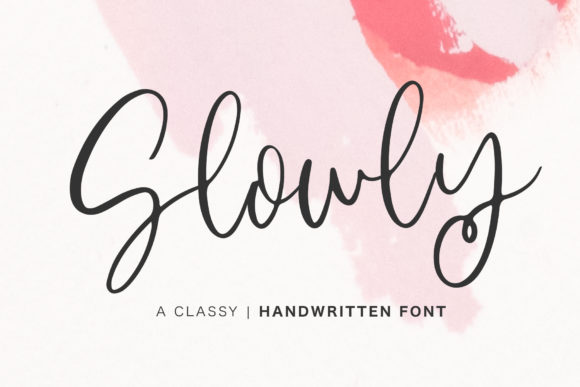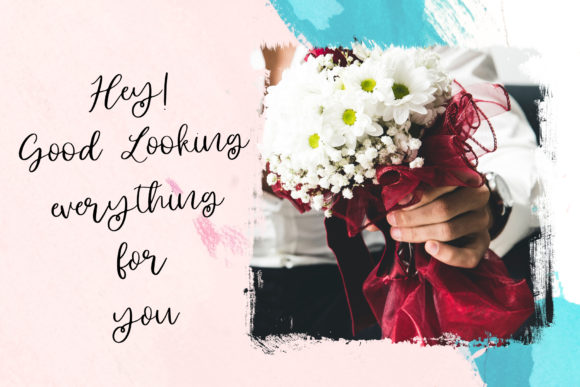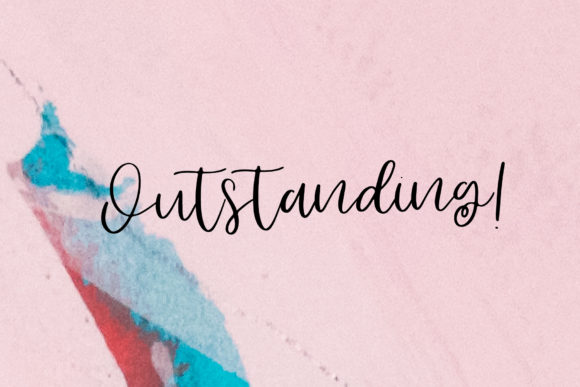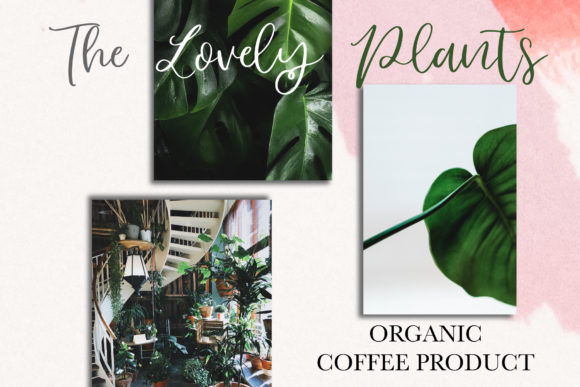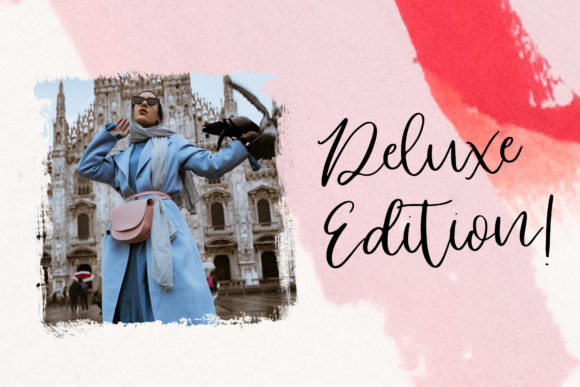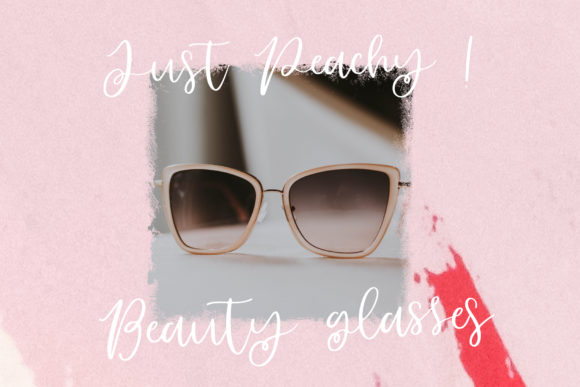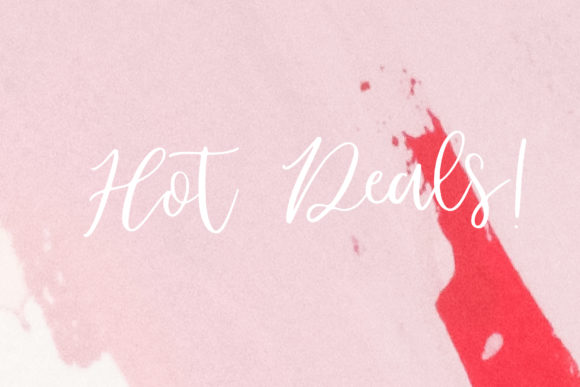
Slowly Font
About Slowly Font
Take it easy: Slowly is a beautiful and charming script font with a light feel. It will add a contemporary vibe to any design project.